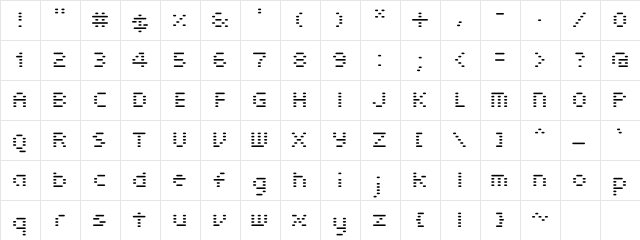
Cardew Three Rounded
Design Context for Cardew Three Typeface
Cardew Three softens its letterforms with rounded terminals, giving it an approachable, friendly quality that works well in consumer-facing and digital contexts.
Well-suited to UI design, mobile interfaces, and any brand that wants approachability without sacrificing clarity.
Font Pairing: Pairs well with a rounded or humanist sans for body copy, maintaining the friendly tone without relying on Cardew Three to carry extended reading.
Pro Tip: Use Cardew Three for UI elements, app interfaces, and anywhere a friendly, approachable tone needs to be maintained without sacrificing clarity.